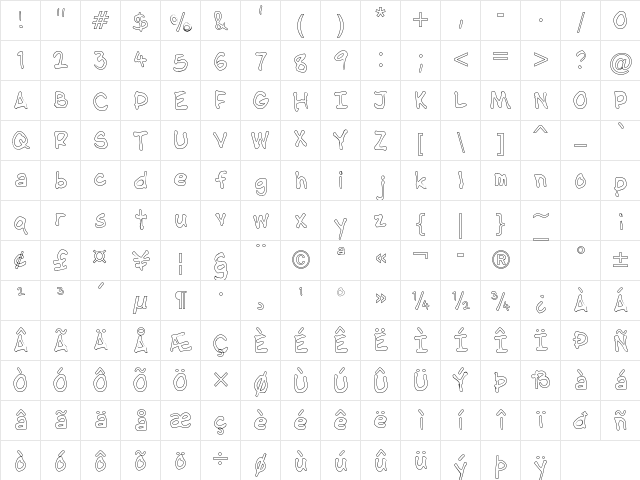
NipCen's Handwriting Outline Regular
Design Context for NipCen's Handwriting Outline Typeface
NipCen's Handwriting Outline brings a calligraphic fluidity to the page — its connecting strokes and expressive curves give it an unmistakably human quality.
Font Pairing: Combine NipCen's Handwriting Outline with a simple geometric sans for maximum contrast — the tension between flowing curves and clean structure is a classic typographic pairing.
Pro Tip: Pair NipCen's Handwriting Outline with a clean sans-serif for supporting text. The contrast between fluid script and geometric structure creates an elegant typographic hierarchy.